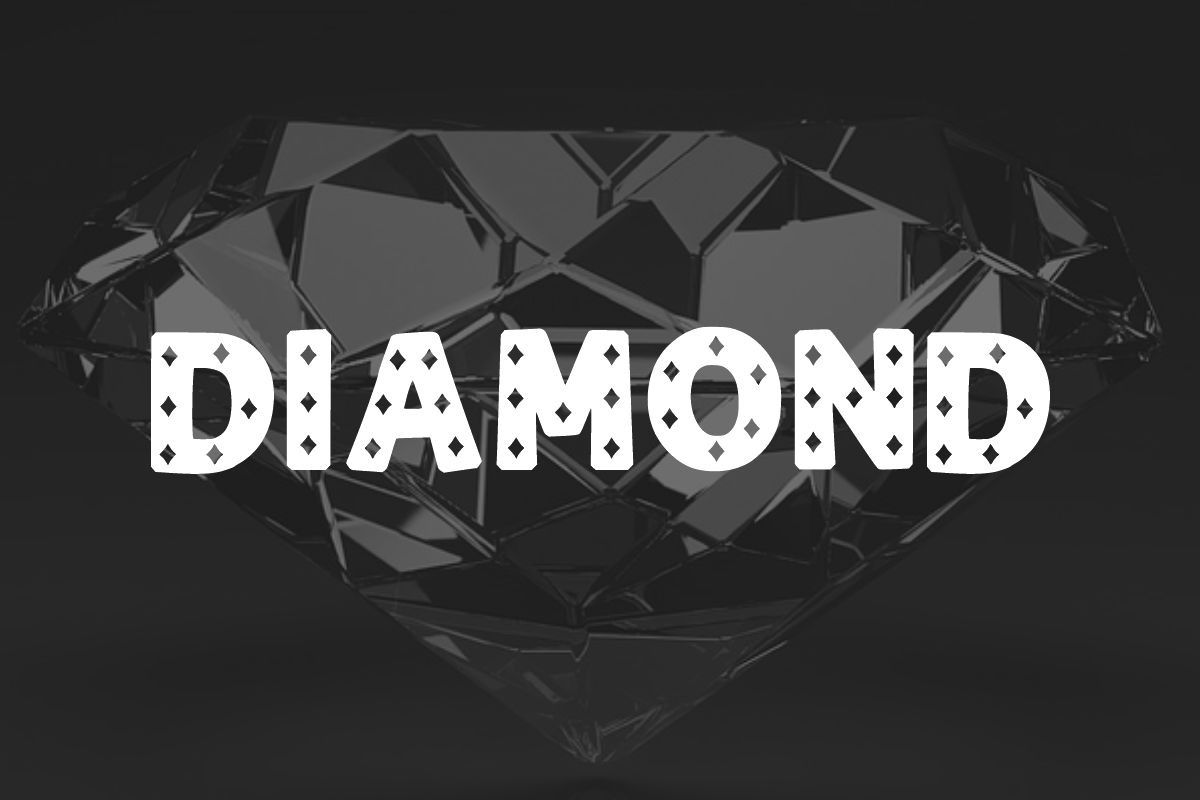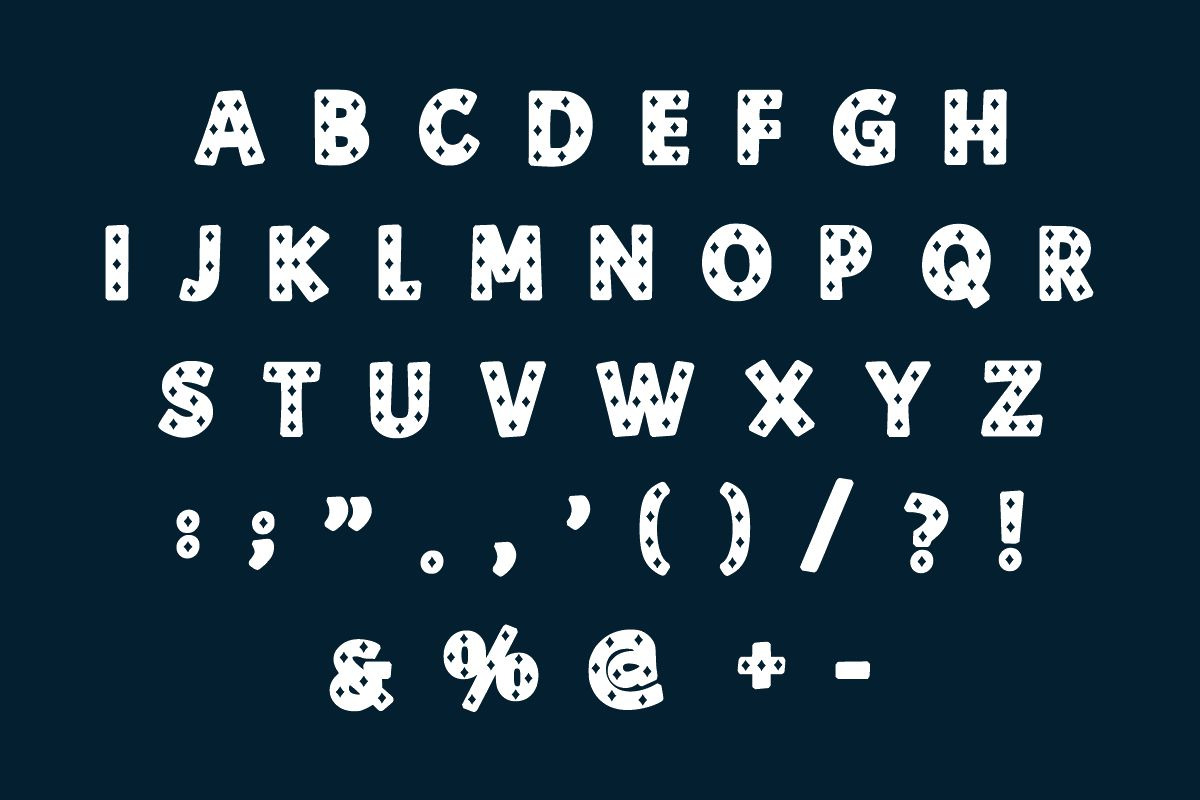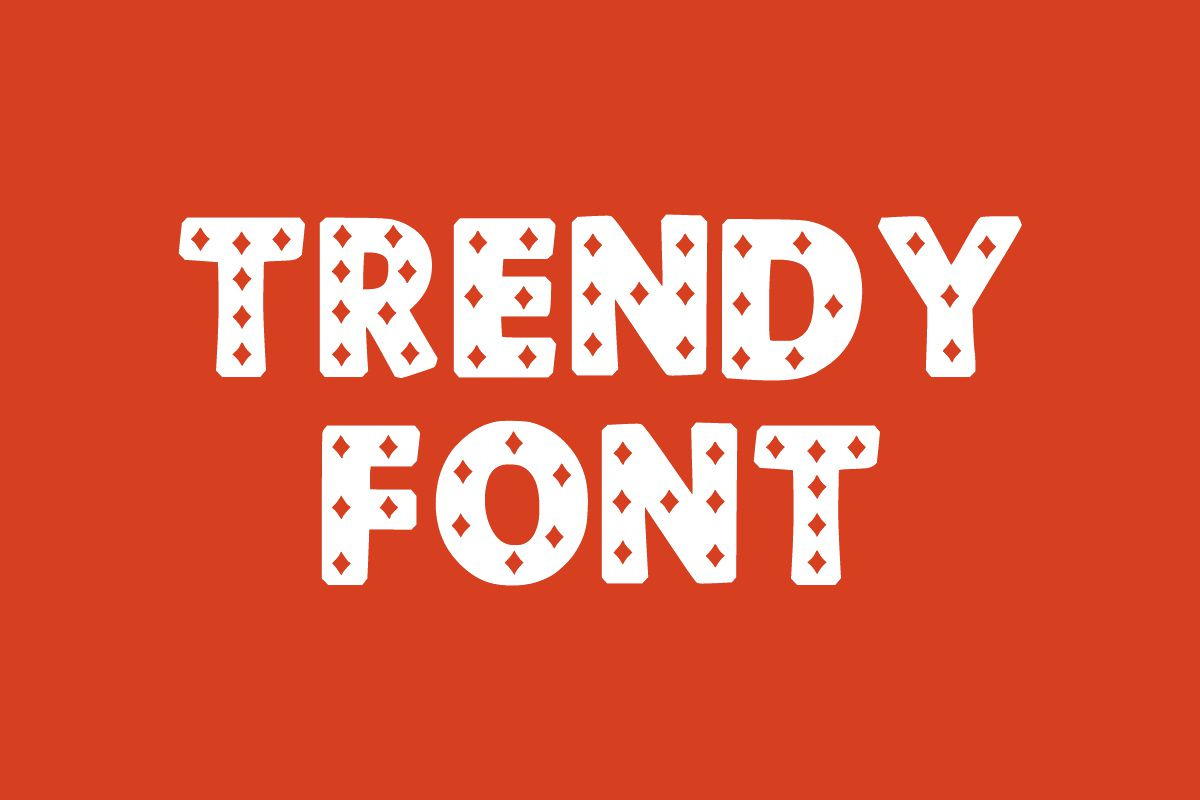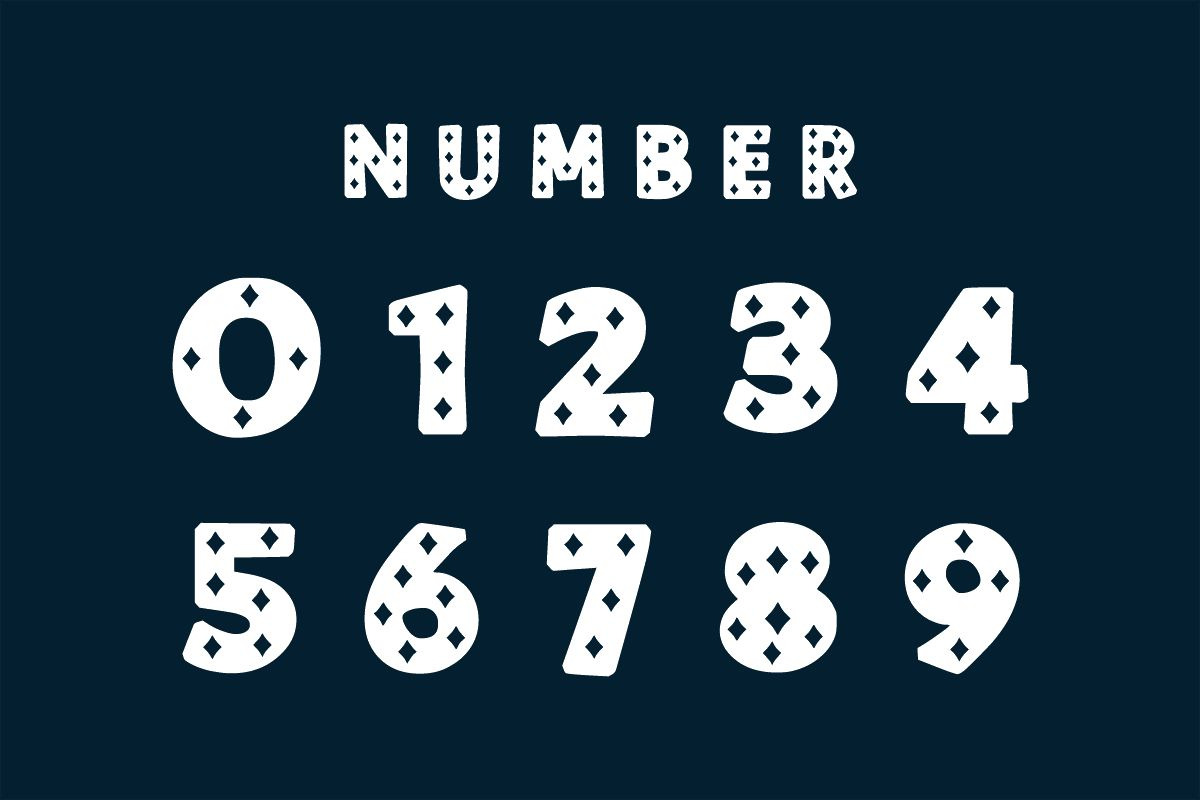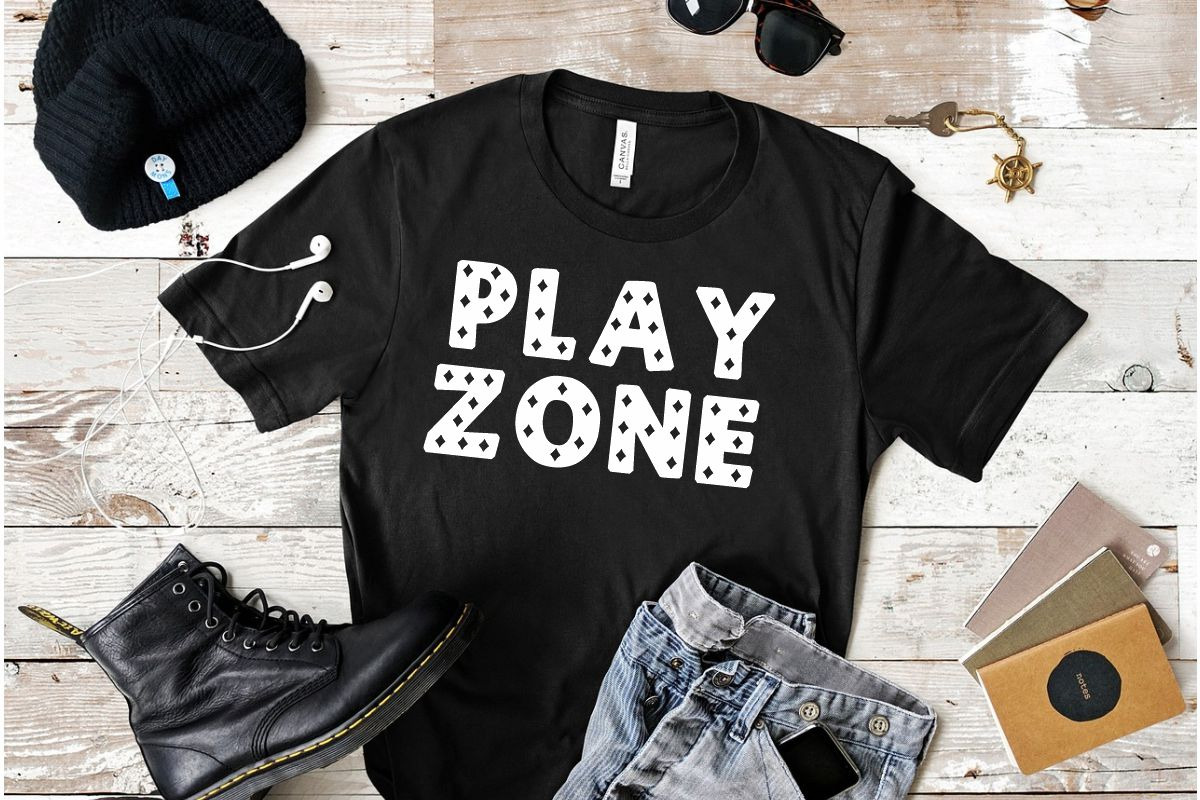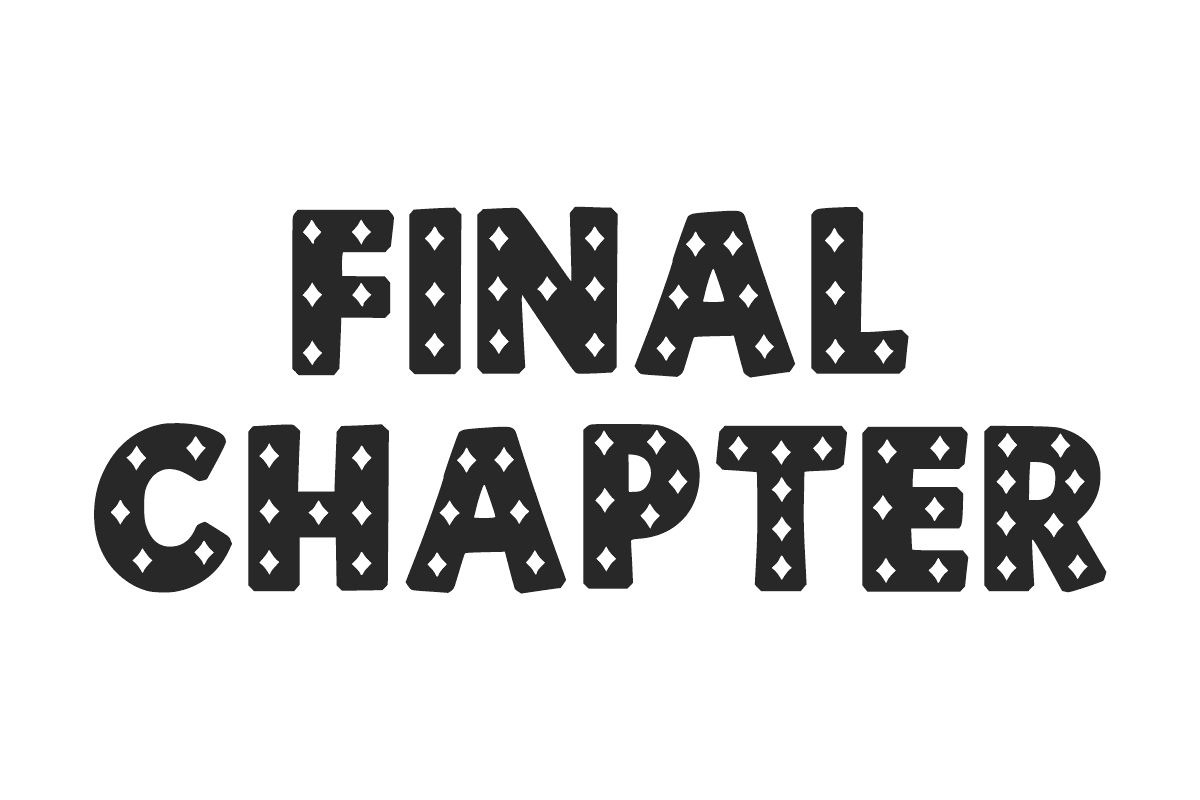
LIGHT DIAMOND
Light Diamond is a diamond decorated display font. This easy-to-read typeface conveys impeccable friendliness, and it is perfect for games. Whether you’re using it for crafts, digital design, presentations, or greeting cards, this font has the potential to become your favorite go-to font, no matter the occasion!